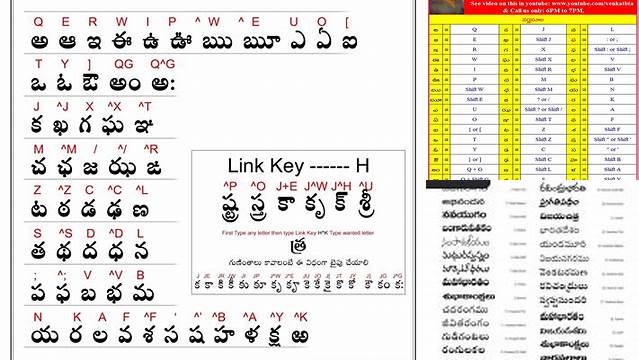
Anu Script Telugu Font On Apple Keyboard: A How-To Guide
Hey guys! Ever wanted to type in Telugu on your Apple devices using the Anu Script font but felt a bit lost? You're not alone! It can seem tricky at first, but trust me, it's totally doable. This guide is here to break it down for you, step by step, so you can start typing away in Telugu like a pro. We'll cover everything from installing the font to setting up your keyboard and even troubleshooting common issues. So, let's dive in and get you typing in Telugu on your Apple devices with the Anu Script font!
Understanding the Importance of Anu Script Telugu Fonts
Before we jump into the how-to, let's quickly chat about why the Anu Script font is so popular and important for typing in Telugu. Telugu, a beautiful and expressive language, has its own unique script. While there are various Telugu fonts available, Anu Script has gained a special place due to its clear, legible, and aesthetically pleasing design. It's widely used in various publications, websites, and documents, making it a go-to choice for many Telugu speakers and writers. Using a standard and well-recognized font like Anu Script ensures that your text is displayed correctly across different devices and platforms. This is crucial for maintaining the integrity and readability of your content. Imagine spending hours crafting a beautiful Telugu poem, only to have it displayed in a garbled or unreadable font on someone else's screen β that would be a bummer, right? That's why choosing the right font, like Anu Script, is so important. Beyond readability, Anu Script also carries a certain elegance and traditional feel, making it a preferred choice for formal documents, literary works, and cultural content. It helps preserve the beauty and essence of the Telugu language in the digital world. So, whether you're writing a casual message to a friend or drafting a professional report, using Anu Script ensures that your Telugu text looks its best and is easily understood by everyone. Plus, knowing how to set it up on your Apple devices opens up a world of possibilities for expressing yourself in Telugu in the digital realm.
Conclusion: Unleash the Power of Telugu Typing with Anu Script
So there you have it, guys! A comprehensive guide to using the Anu Script Telugu font on your Apple devices. We've covered everything from installing the font and setting up your keyboard to troubleshooting common issues. Now you're fully equipped to express yourself in Telugu in the digital world! Typing in your native language is a powerful way to connect with your culture, communicate with loved ones, and preserve your heritage. By using the Anu Script font, you're ensuring that your Telugu text is displayed beautifully and legibly across different platforms. Whether you're writing a heartfelt message to a friend, crafting a professional document, or expressing your creativity through poetry or stories, the ability to type in Telugu opens up a world of possibilities. Remember, practice makes perfect. The more you type in Telugu, the more comfortable and fluent you'll become. Don't be afraid to experiment with different keyboard layouts and apps to find what works best for you. And if you ever get stuck, remember that there are plenty of resources available online to help you. The Telugu-speaking community is vibrant and supportive, and there are many forums and groups where you can ask questions and share your experiences. So, go ahead and unleash the power of Telugu typing with Anu Script! Start creating, communicating, and connecting with the world in your own beautiful language. We hope this guide has been helpful and informative. Happy typing, and have fun expressing yourself in Telugu!